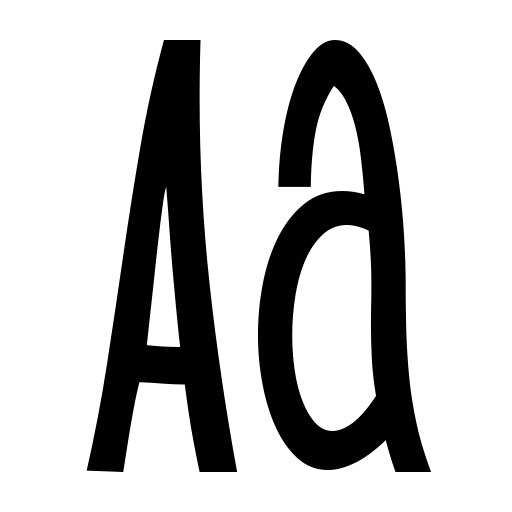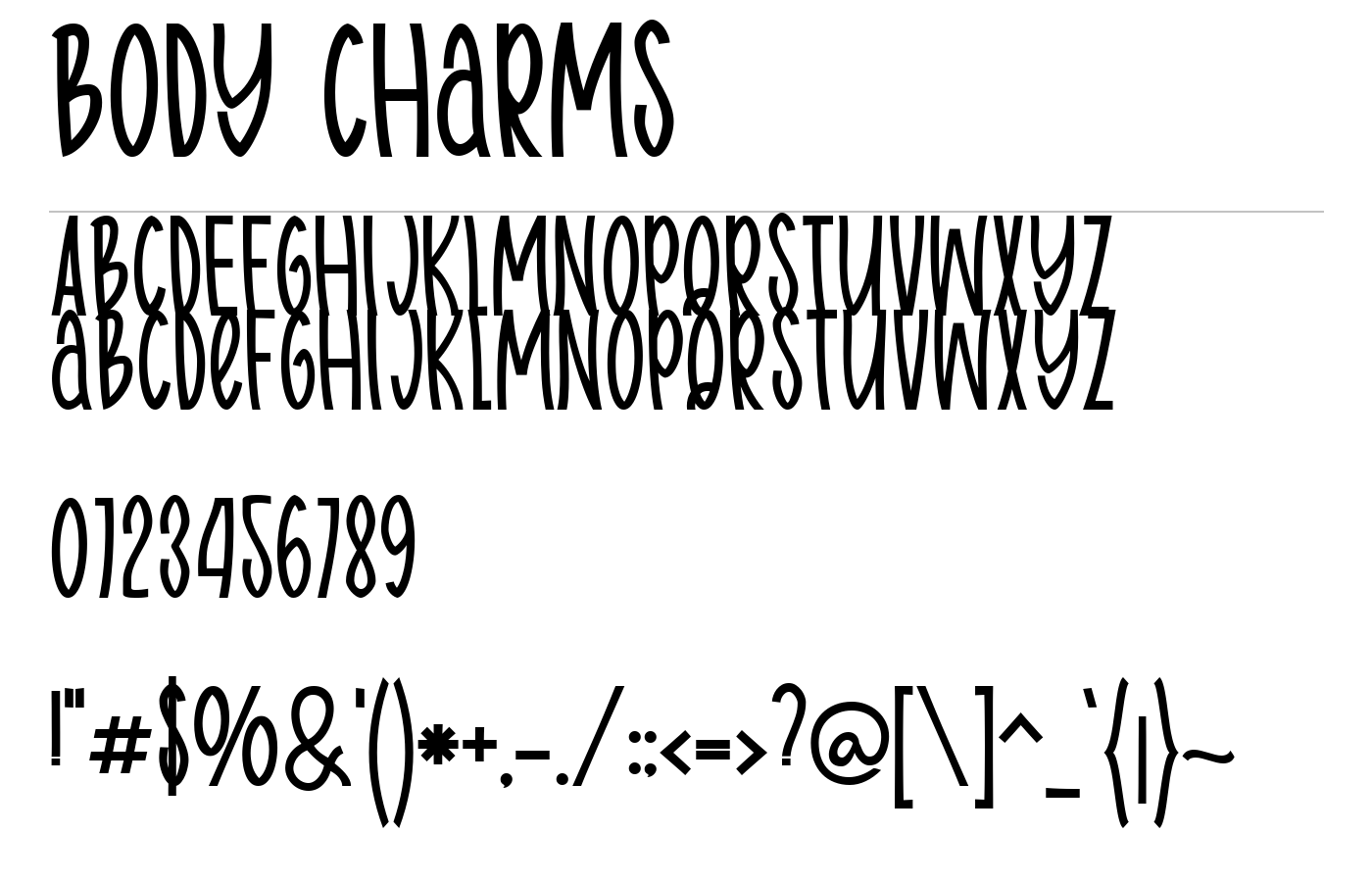
Body Charms is a playful and quirky sans serif font featuring tall, narrow letterforms with a hand-drawn feel. Its casual and slightly irregular shapes make it perfect for fun, informal designs such as children’s books, creative branding, and friendly headlines, bringing a lively and approachable personality to any project.
Body charms Font
About Body charms Font
| Font family | Body charms Font |
| Designer | jehan |